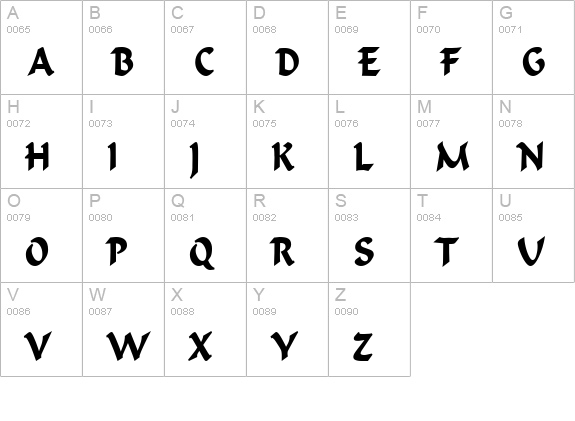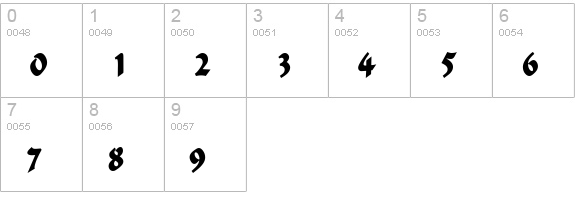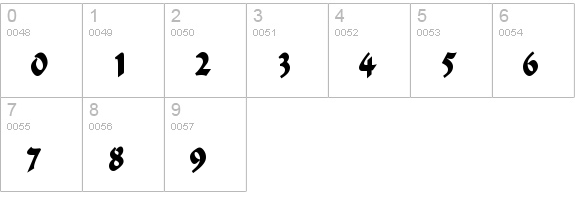
Flat Brush Condensed Bold Font Details
Flat Brush Condensed Bold is a strong, high-contrast, condensed-width variant in the Flat typeface family \xE2\x80\x94 well suited to headlines, attention-grabbing titles, and strong calls-to-action.
Flat Brush Condensed Bold font is a modern and versatile typeface that exudes confidence and style. With its condensed design and bold strokes, this font is perfect for creating eye-catching headlines, titles, and logos. The flat brush style gives it a unique and artistic flair, making it suitable for a wide range of design projects. This font is available for free download at FontsMarket.com, making it easily accessible for designers and creatives looking to add a touch of boldness to their work. Whether you're designing a poster, website, or branding materials, Flat Brush Condensed Bold font is sure to make a statement and leave a lasting impression. Elevate your designs with this impactful and dynamic typeface today!